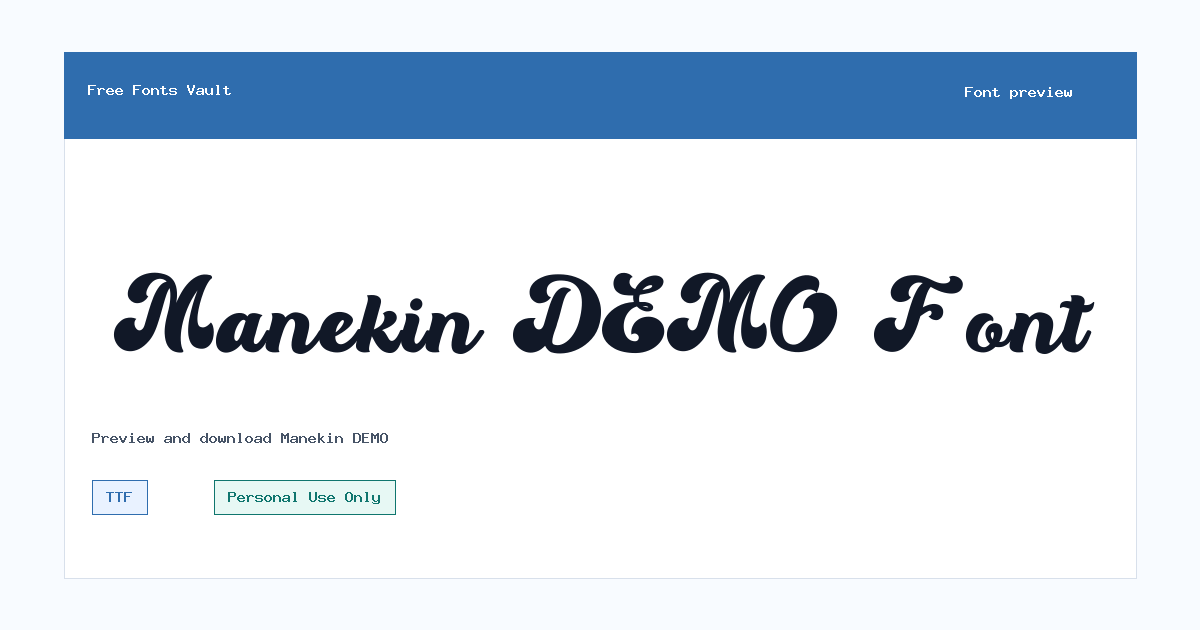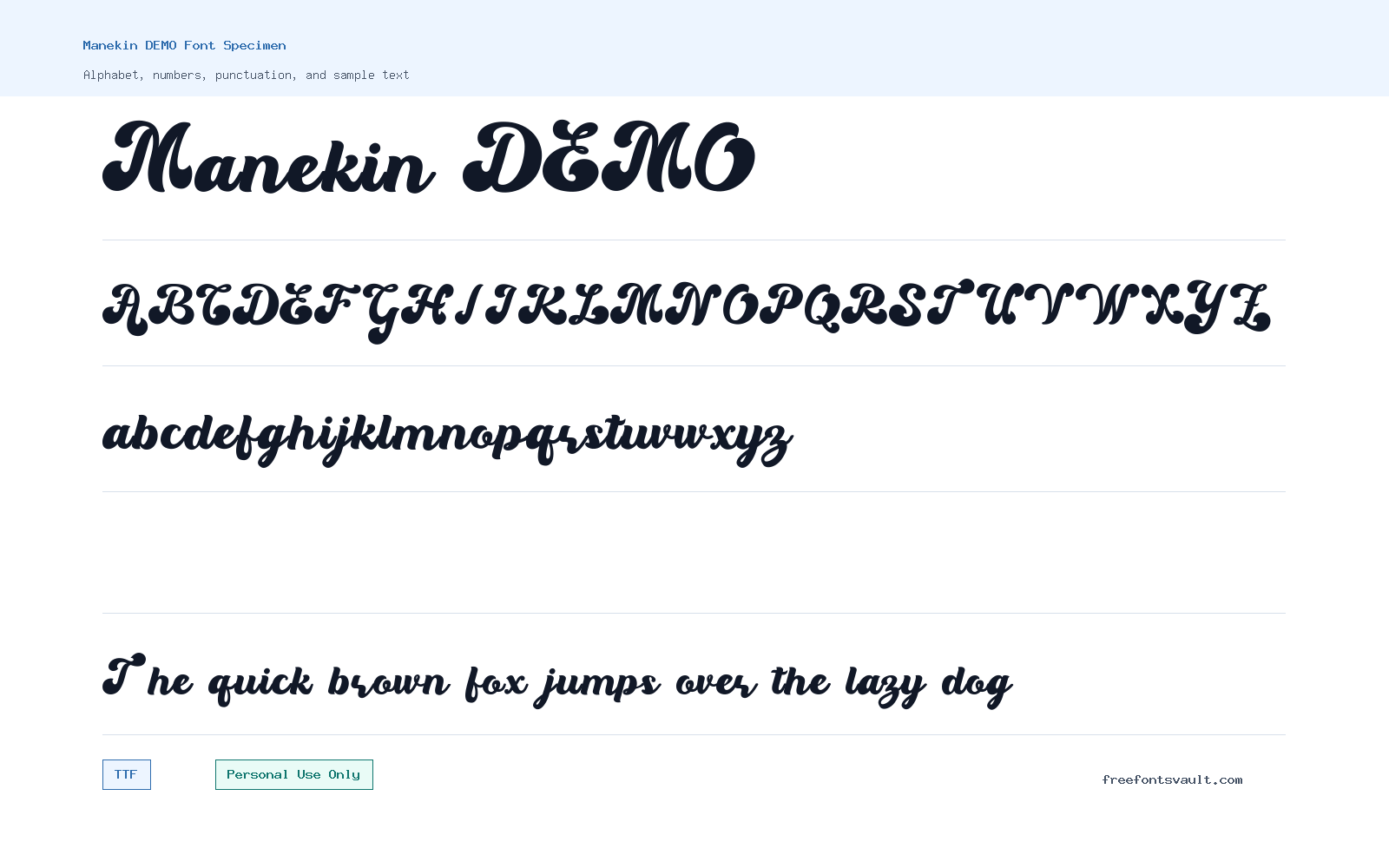
Manekin DEMO
Manekin DEMO font.
Manekin DEMO is a script-style display font with a bold, hand-lettered feel, made for previewing expressive title and branding ideas before choosing a final font for a project.
About Manekin DEMO
Manekin DEMO is best approached as a display script rather than a long-reading text font. Its personality comes through most clearly in short words, names, headline lines, poster text, packaging drafts, social graphics, and logo mockups. The demo file is provided in TTF format with a regular style, so it should be easy to install and test in common design apps that support TrueType fonts. Because the available file is a demo version, visitors should treat it as a trial font for layout testing and personal design experiments, not as a final commercial asset unless the proper license has been obtained from the rights holder.
For logo work, try Manekin DEMO in short brand names first. Script fonts often look strongest when they have room to breathe, so avoid squeezing the letters into narrow spaces or setting long phrases in all one style. It can work well for poster headings, merchandise mockups, invitation-style graphics, and web hero concepts where the font is used as the main visual voice. If you are testing it for a website design, use it sparingly in mockups: a single headline, badge, or callout will usually be more readable than a full paragraph. Before using it in any client, product, advertising, or monetized project, check the license terms carefully, because the listed license is Personal Use Only.
- Script display style suited to short, expressive text rather than body copy
- Useful for personal logo drafts, posters, title treatments, and web mockups
- Best used at medium to large sizes where the letter shapes stay clear
- Personal logo mockups and name-based wordmarks
- Poster titles, flyers, and event graphics
- Social media quote images or promotional layout drafts
- Packaging concepts, label tests, and branding moodboards
- Website hero headings and landing page mockups
- Invitation-style designs, greeting cards, and decorative titles
Use Manekin DEMO for short text where style matters more than dense readability. Test names, two- or three-word headlines, and display phrases in the preview box before downloading. Pair it with a clean sans serif or simple serif for supporting text, and let the script handle only the main accent. Avoid using it for paragraphs, small captions, interface labels, or long menu text, because decorative script fonts can become harder to read at small sizes.
What kind of projects suit Manekin DEMO?
It suits short display uses such as personal logo drafts, poster titles, social graphics, packaging concepts, invitations, and web mockup headings.
Is Manekin DEMO good for body text?
It is better for display text than body copy. Use it for headings or short phrases, then pair it with a simpler font for paragraphs and small text.
What should I pair with Manekin DEMO?
Pair it with a neutral sans serif for a clean modern layout, or a quiet serif for a softer editorial look. Keep the companion font simple so the script remains the focus.